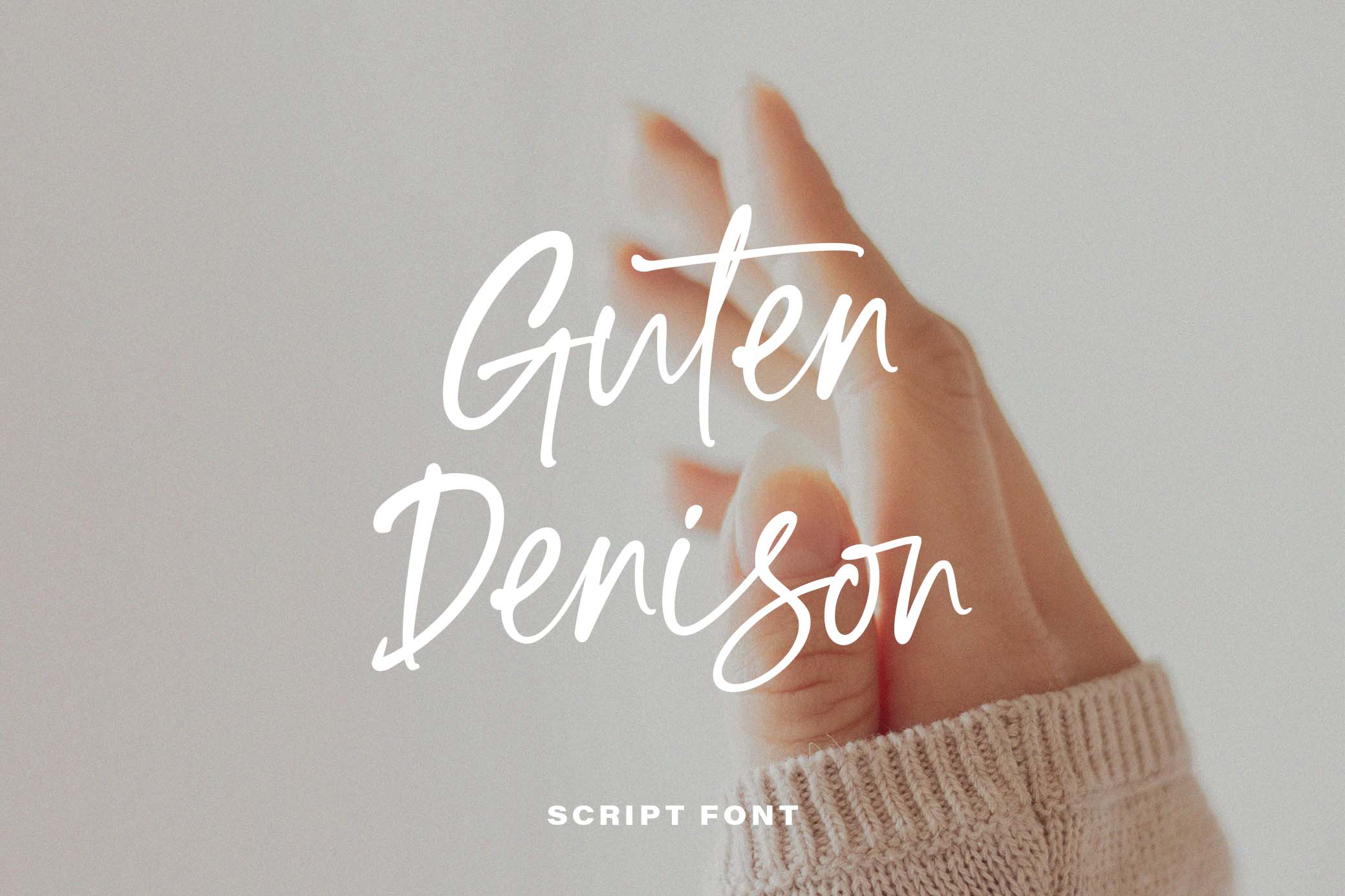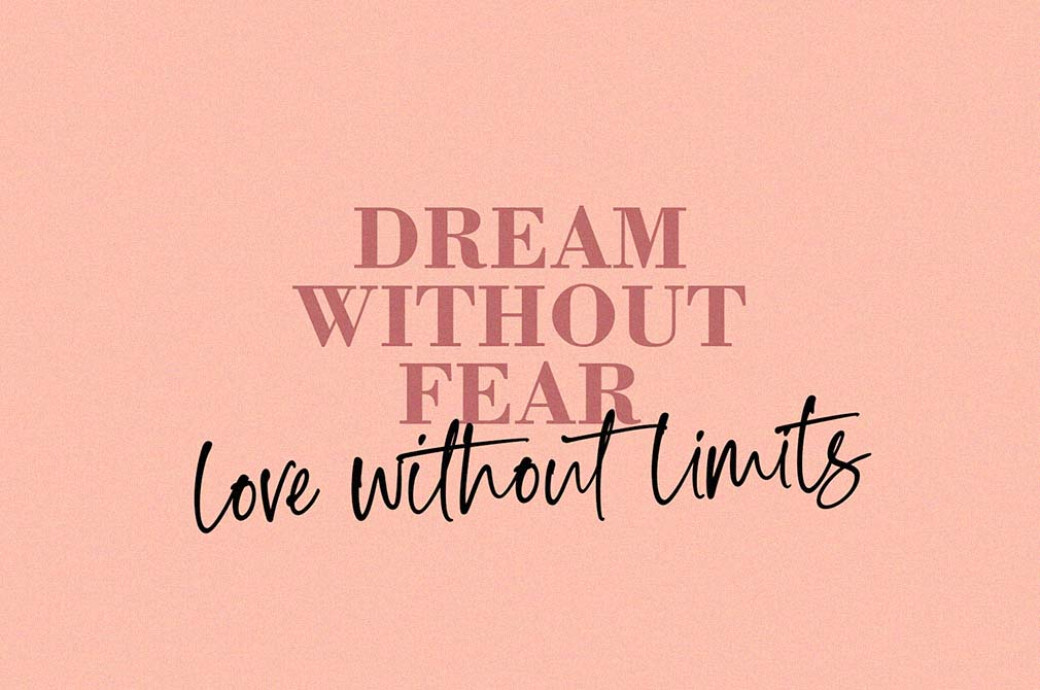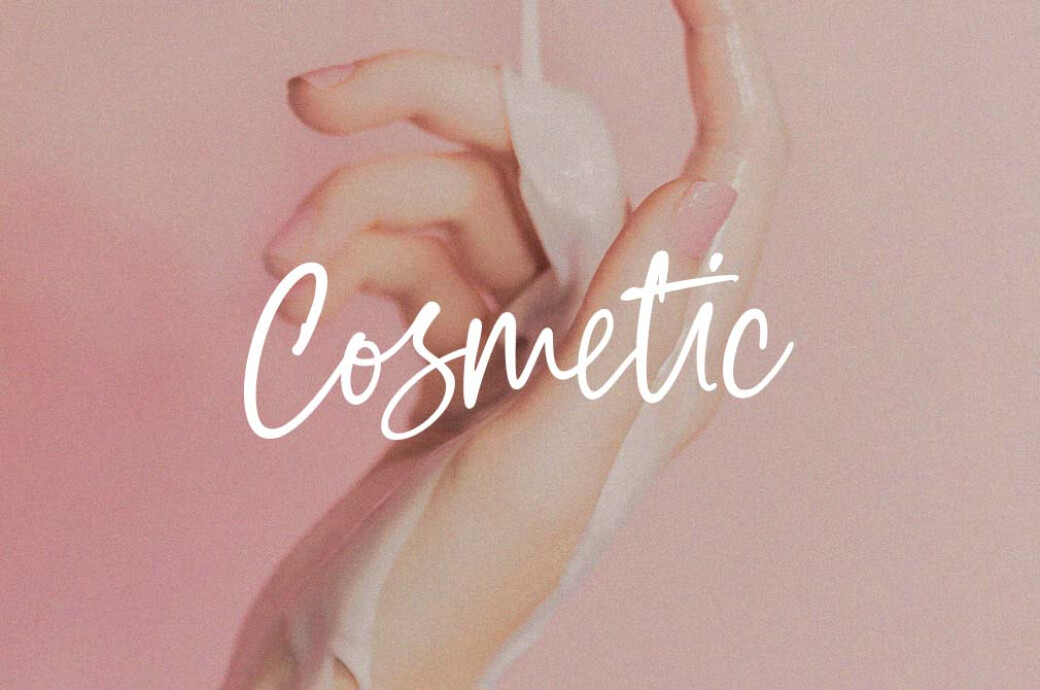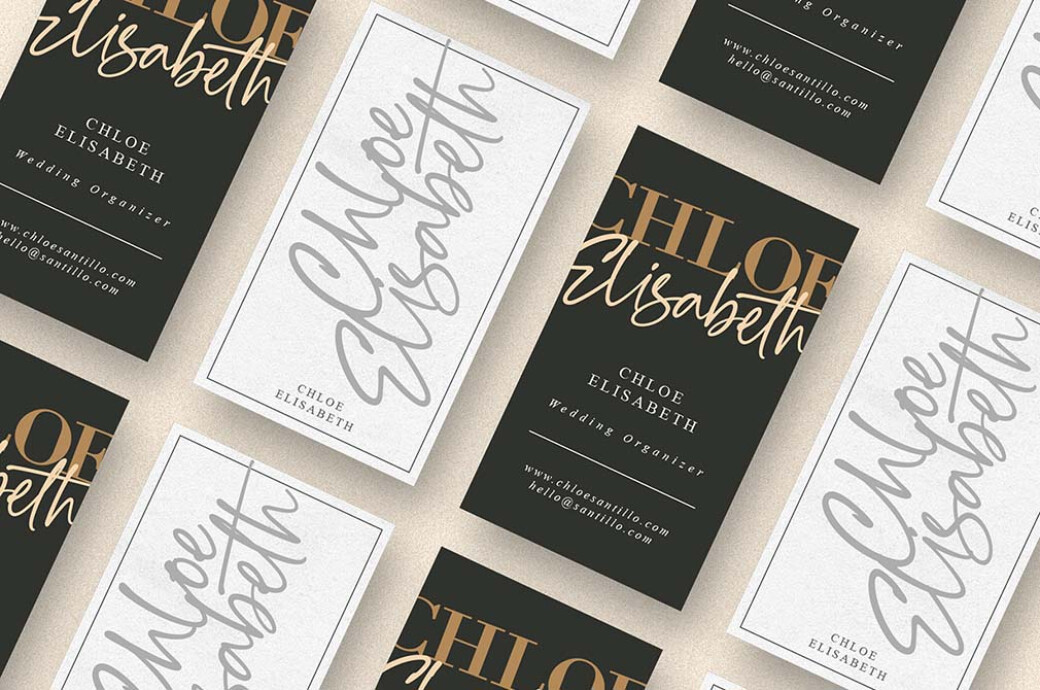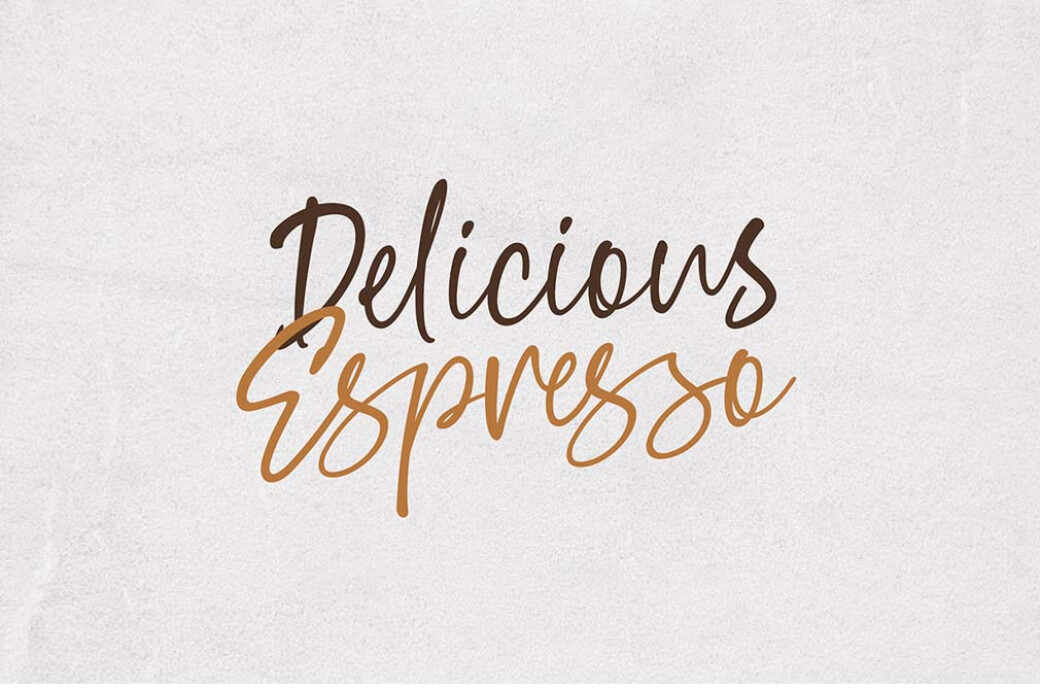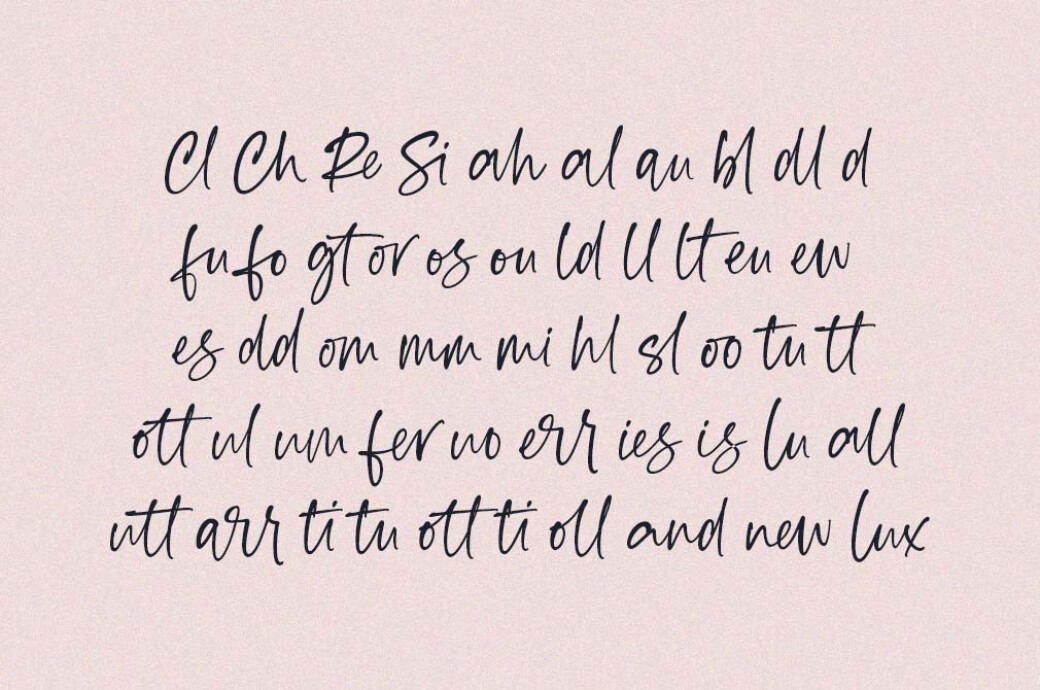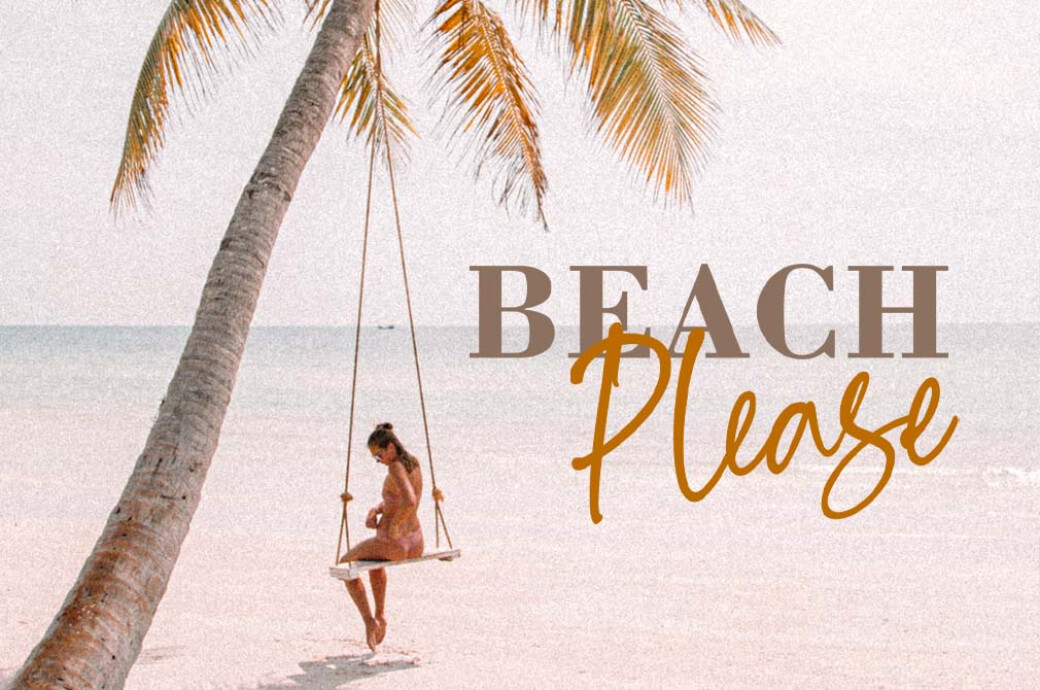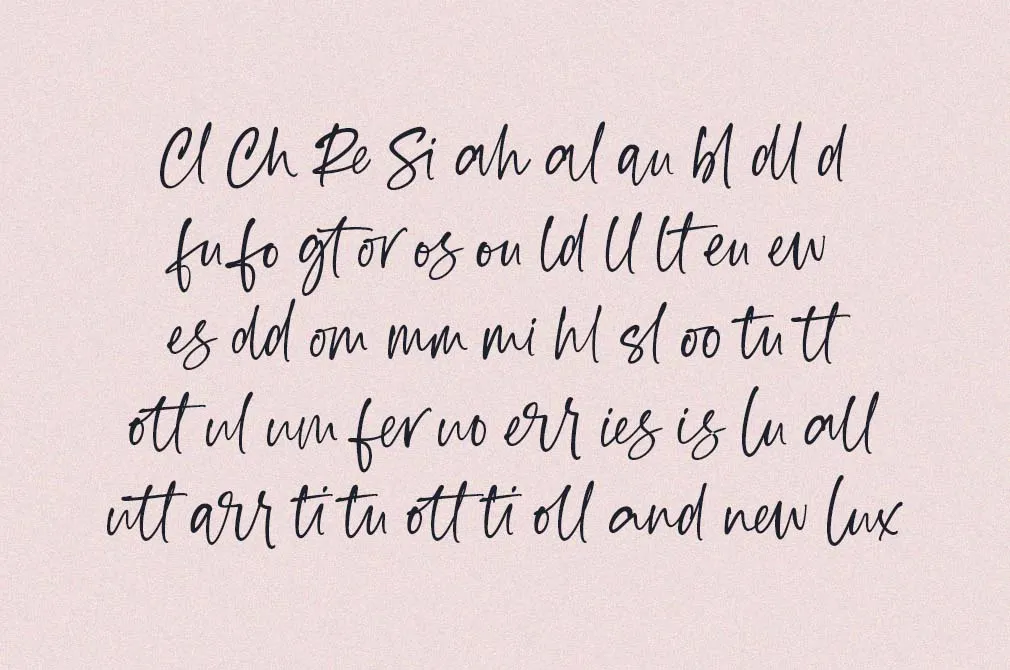
Guten Denison Script Font
When we speak of chic, sophisticated types, sans serifs come to mind first. But don't let yourself fall for stereotypes: this script font is a true embodiment of elegance.Upgrade your designs with the flick of a wrist and a single font, Guten Denison. The font is drawn with a liner — just a quick reckless motion, and that's all. However, this is the secret of its success, as every letter is full of relaxed, wealthy vibes. And there're also OpenType features, multilingual support, numerals, and punctuation. A nice feature of Guten Denison is that it perfectly pairs with serif types — just like it does in the preview (careful: Vogue font by Vladimir Nikolic featured in the preview isn't included).